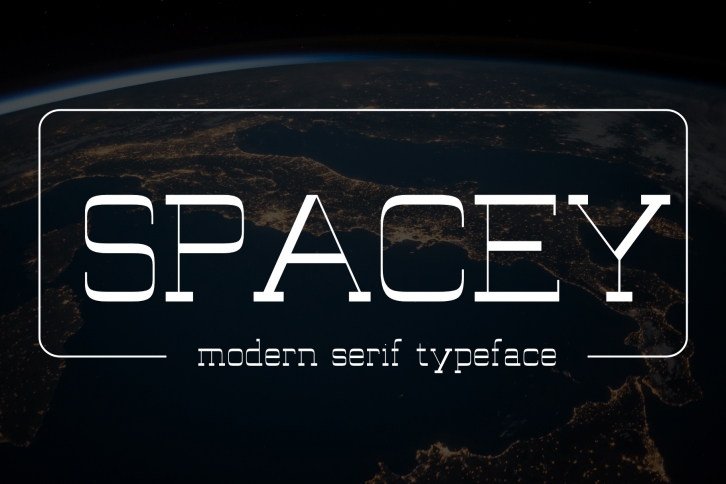
Spacey is a clean, elegant, and modern serif typeface that you can use in packaging or branding, creating beautiful logos, headlines, quotes, and any other printed matter.